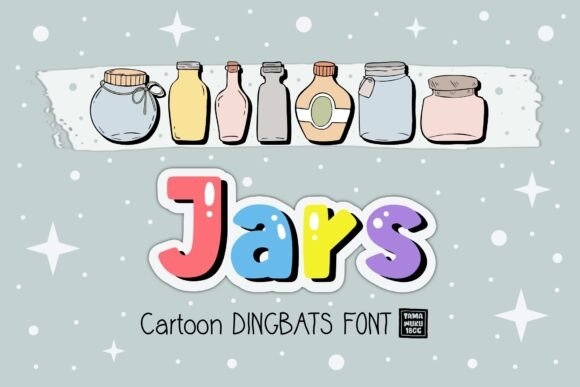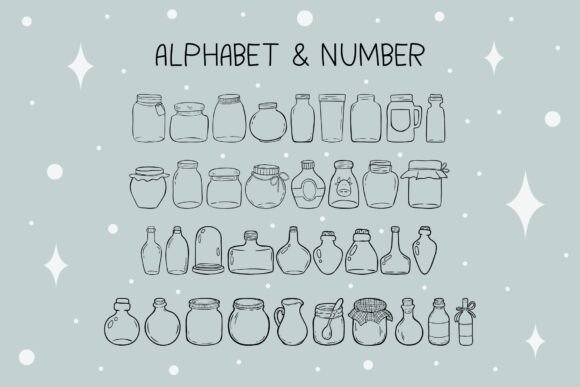
Jars Font
About the Jars Font
Add a touch of class to your work with the Jars Font, a truly exceptional typeface. Jars is a dingbats font. This font is the perfect fit for all of your logos, wall art, signs, cards, art prints, t-shirts, coloring page, and much more!
Jars’ playful, yet slightly rustic character makes it ideal for projects requiring a touch of handmade charm. It excels in branding for artisanal goods, children’s products, or cafes; think logos, short taglines, and packaging designs. Use it sparingly in posters or signage, focusing on impactful statements rather than lengthy text. Avoid using Jars for body copy or UI elements where readability is paramount.
Pairing Jars with a clean sans-serif like Open Sans for body text provides excellent contrast and readability. For a more sophisticated feel, consider a classic serif such as Garamond for supporting text. If a more whimsical approach is desired, a handwritten script font could create a delightful juxtaposition.
The overall personality is best described as friendly and approachable, with a hint of vintage appeal. Its informal nature makes it unsuitable for formal contexts or projects needing a highly polished, corporate aesthetic.